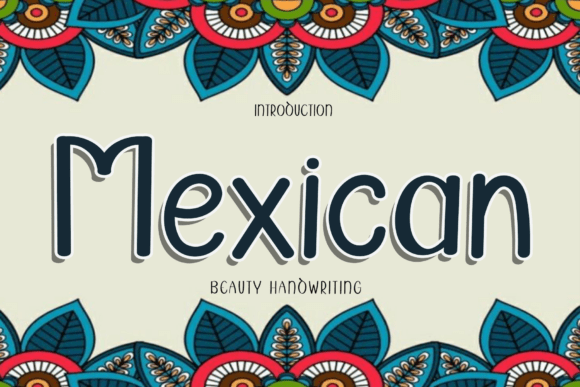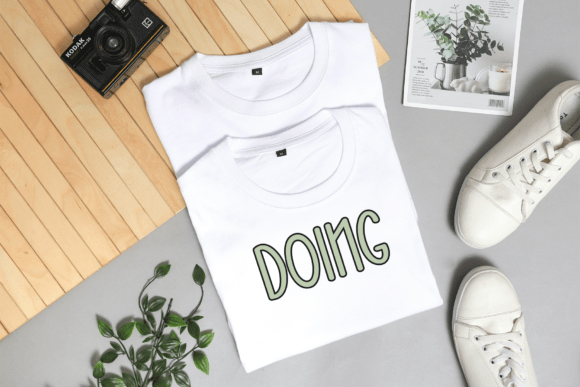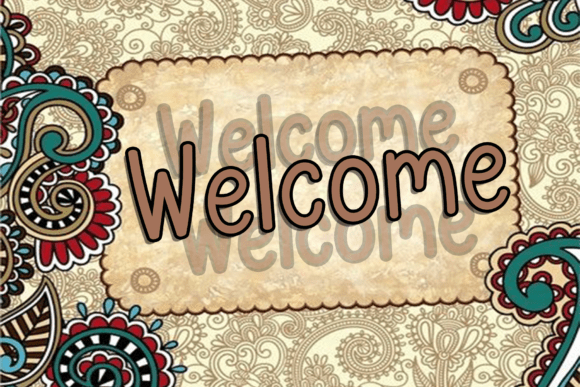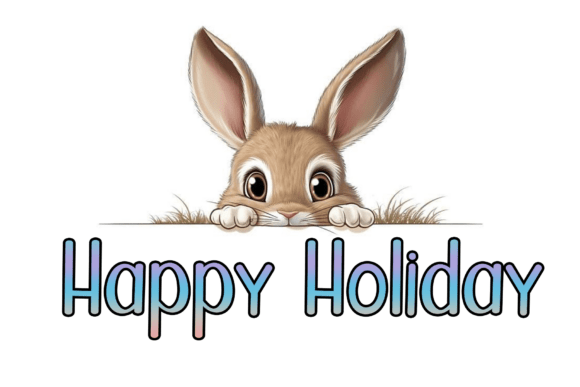
Mexican Font
About the Mexican Font
Discover the charm of Mexican Font. This font is a perfect blend of modern aesthetics and classic appeal. Mexican is a simple handwritten font. This versatile font has a wide spectrum of applications ranging from greeting cards to headlines and is guaranteed to add a simple and natural feel to your next project!
Mexican’s casual, handwritten style excels in headlines, short text blocks on invitations or posters, and branding applications where a friendly, approachable feel is desired. It works well for projects related to food, crafts, or events with a warm, informal tone. However, its low x-height and inconsistent stroke weight make it unsuitable for body text or UI elements requiring high readability.
For optimal visual balance, pair Mexican with a clean sans-serif like Open Sans for a modern contrast, or a classic serif such as Garamond for a more traditional feel. A playful script font could also create a charming combination, depending on the desired effect.
Its overall personality is best described as friendly and approachable, conveying a sense of handcrafted authenticity. Avoid using it for projects requiring sophistication or a high degree of professionalism.